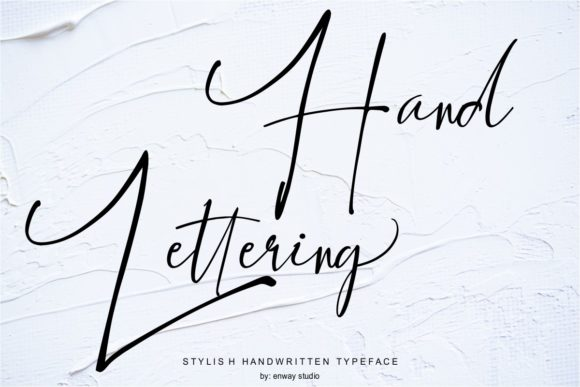
Gallant Signature Font
Gallant Signature is a flowing handwritten font, described by an elegant touch, perfect for your favorite projects. This font is PUA encoded which means you can access all of the glyphs and swashes with ease!